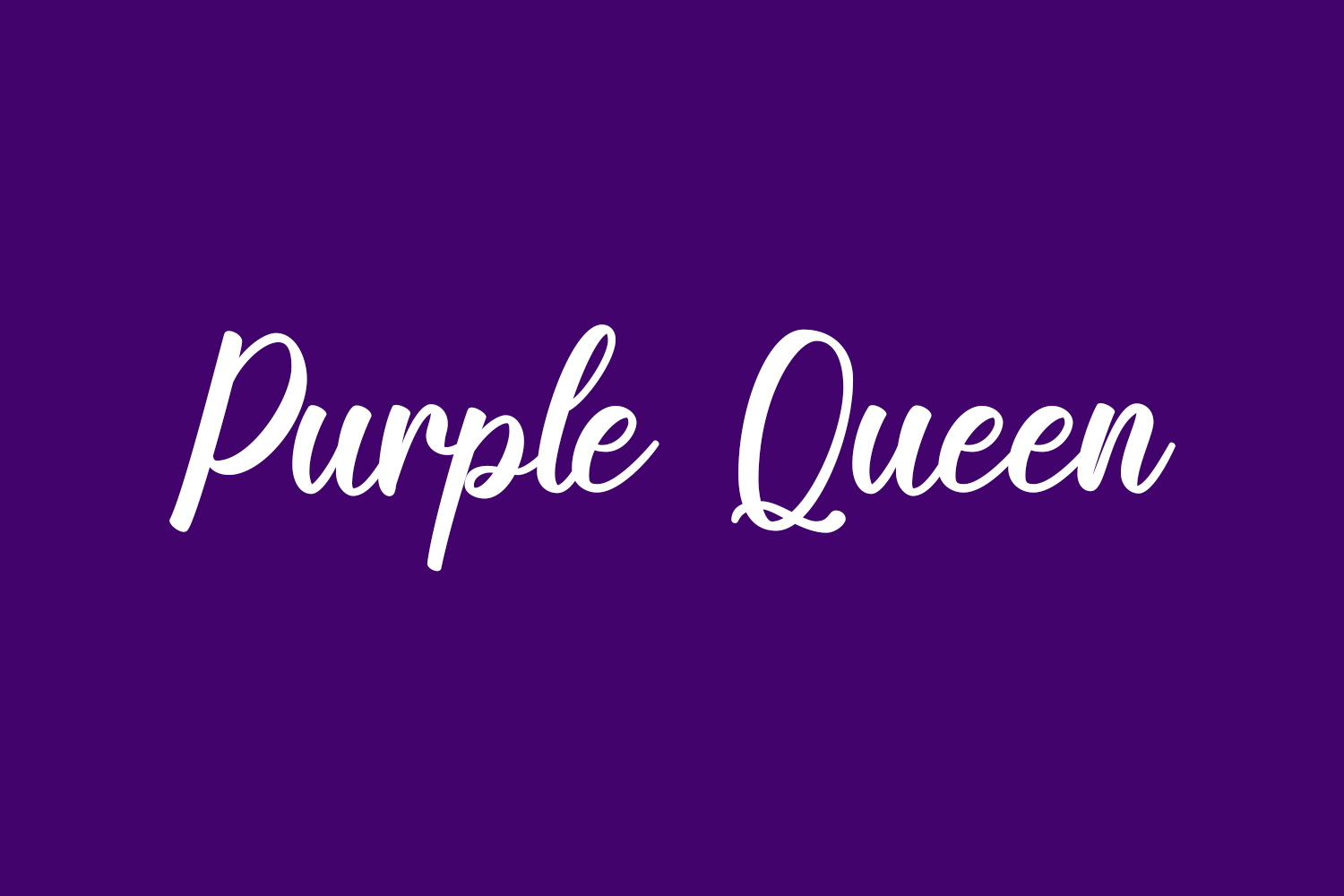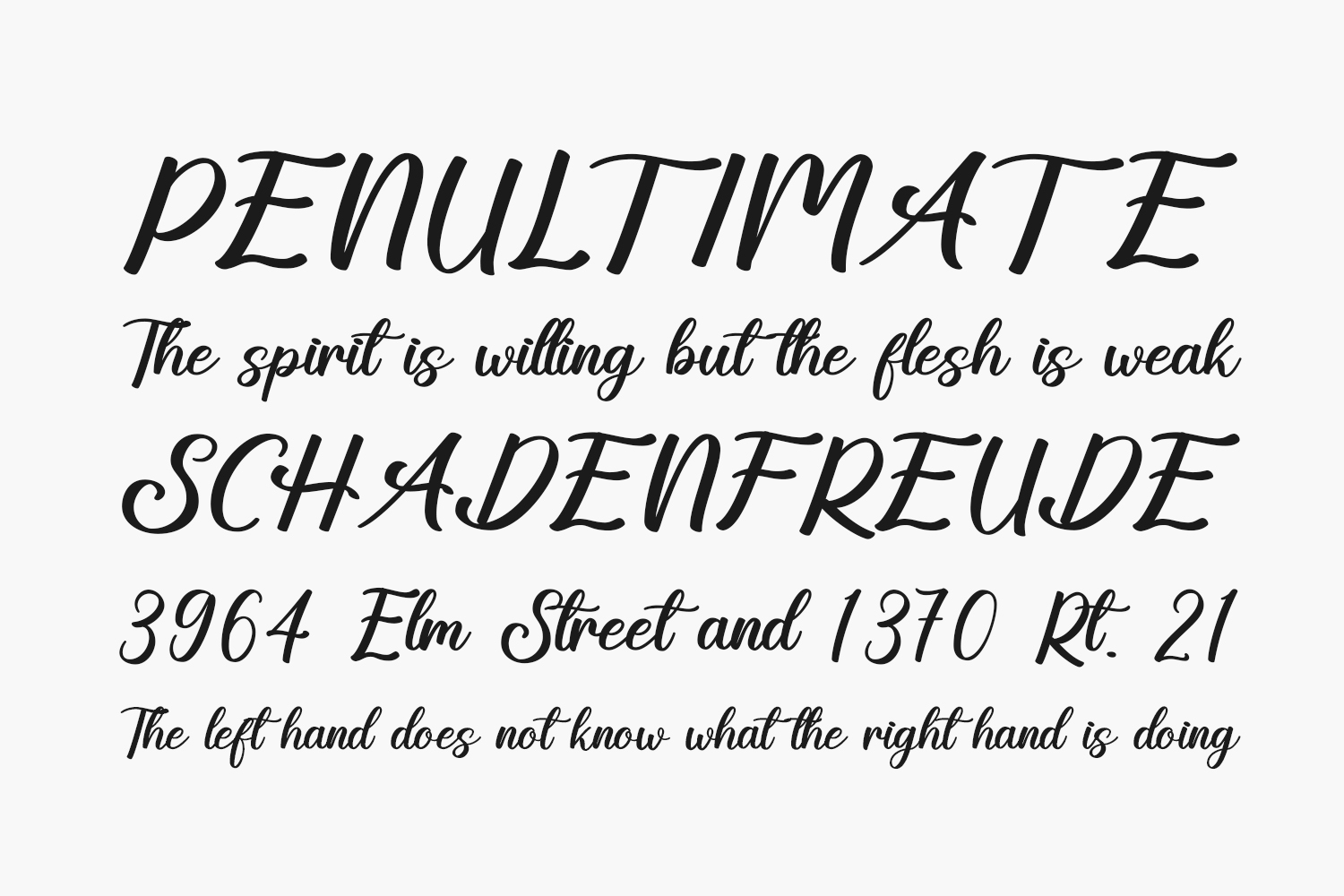
Purple Queen Free Font is a magical handwritten font. It looks ravishing on invitations, thank you cards, quotes, greeting cards, logos, business cards and every other design which needs a customized touch. Purple Queen Free Font is free for personal use only. Please purchase the full version for commercial use.
Designed by Nirmala Creative